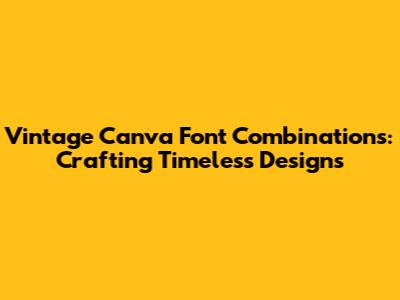
Hey guys! Are you looking to give your designs that awesome, classic feel? You know, that vintage vibe that just screams cool? Well, you're in the right place! Let's dive into the world of vintage Canva font combinations. I'm going to show you how to mix and match fonts to create designs that look like they're straight out of a time capsule. Trust me, it's easier than you think, and the results can be stunning. Whether you're working on a logo, a poster, or social media graphics, the right font combo can make all the difference. So, grab your creative hat, and let's get started!
Understanding the Essence of Vintage Fonts
Before we jump into specific font pairings, it's crucial to understand what makes a font feel vintage. Vintage fonts often evoke a sense of nostalgia, history, and craftsmanship. They tend to have distinct characteristics that set them apart from modern, minimalist typefaces. Think about the fonts you've seen in old movie posters, retro advertisements, and antique books. What do they have in common? Typically, vintage fonts include serifs (those little feet or strokes at the end of letters), decorative elements, and a certain level of ornamentation. They might also have a slightly distressed or imperfect appearance, adding to their aged charm.
When selecting vintage fonts for your Canva designs, consider the specific era or style you want to emulate. Are you going for a 1920s Art Deco look? Or perhaps a mid-century modern feel? Each era has its own unique typographic trends. For example, Art Deco fonts often feature geometric shapes and bold lines, while mid-century fonts might have a more playful and whimsical quality. Understanding these nuances will help you choose fonts that accurately reflect the vintage aesthetic you're aiming for. Also, pay attention to the overall mood and message you want to convey. A delicate, script font might be perfect for a romantic wedding invitation, while a bold, sans-serif font could be more suitable for a retro-inspired promotional poster. By carefully considering these factors, you can select vintage fonts that not only look beautiful but also effectively communicate your intended message.
Top Vintage Font Pairings in Canva
Alright, let's get to the fun part: pairing fonts! Here are some of my favorite vintage font combinations that you can easily recreate in Canva. I'll break down why these pairings work so well together and give you some ideas for how to use them in your projects.
1. Playfair Display & Montserrat
Playfair Display is a classic serif font with elegant, high-contrast letterforms. It exudes sophistication and refinement, making it perfect for headlines and titles. When paired with Montserrat, a clean and modern sans-serif font, you create a beautiful balance between old and new. Montserrat provides a sense of readability and simplicity that complements the ornate details of Playfair Display. This combination works well for magazine layouts, website headers, and branding materials.
Imagine using Playfair Display for the title of a vintage-inspired fashion magazine, with Montserrat for the body text and captions. The contrast between the two fonts would immediately catch the reader's eye while maintaining a sense of clarity and professionalism. Or, consider using this pairing for a website header, with Playfair Display for the company name and Montserrat for the navigation menu. The elegant title font would convey a sense of history and heritage, while the clean sans-serif font would ensure that the website is easy to navigate. This combination is also a great choice for branding materials, such as business cards and letterheads. Playfair Display can be used for the company logo, while Montserrat can be used for contact information and other details.
2. Bebas Neue & Roboto
For a bolder, more industrial vintage feel, try pairing Bebas Neue with Roboto. Bebas Neue is a tall, condensed sans-serif font that's perfect for making a statement. It has a strong, masculine quality that's reminiscent of vintage signage and posters. Roboto, on the other hand, is a versatile and modern sans-serif font that provides excellent readability. When used together, these fonts create a dynamic contrast that's both eye-catching and functional. This combination is ideal for posters, flyers, and social media graphics.
Think about using Bebas Neue for the headline of a retro-inspired concert poster, with Roboto for the details about the event. The bold title font would immediately grab attention, while the clean sans-serif font would ensure that the information is easy to read. Or, consider using this pairing for a social media graphic promoting a sale or special offer. Bebas Neue can be used to highlight the discount or promotion, while Roboto can be used to provide additional details. This combination is also a great choice for website banners and advertisements. Bebas Neue can be used to create a sense of urgency and excitement, while Roboto can be used to provide clear and concise information. The key to making this pairing work is to use Bebas Neue sparingly and to ensure that Roboto is used for the majority of the text. This will prevent the design from feeling too overwhelming or cluttered.
3. Cinzel & Lato
If you're aiming for a more refined and classical vintage aesthetic, consider pairing Cinzel with Lato. Cinzel is a serif font inspired by classical Roman inscriptions. It has a timeless and elegant quality that's perfect for projects that require a touch of sophistication. Lato, a sleek sans-serif, offers a more modern contrast. The combination is fantastic for wedding invitations, book covers, and high-end branding.
Imagine using Cinzel for the names of the bride and groom on a wedding invitation, with Lato for the details about the ceremony and reception. The elegant serif font would convey a sense of romance and tradition, while the clean sans-serif font would ensure that the invitation is easy to read. Or, consider using this pairing for the cover of a historical fiction novel, with Cinzel for the title and Lato for the author's name and other details. The classical serif font would evoke a sense of history and authenticity, while the modern sans-serif font would prevent the cover from feeling too dated. This combination is also a great choice for branding materials for luxury brands. Cinzel can be used for the company logo, while Lato can be used for taglines and other marketing materials. The key to making this pairing work is to use Cinzel strategically and to ensure that Lato is used for the majority of the text. This will create a sense of balance and harmony between the two fonts.
Tips for Using Vintage Font Combinations Effectively
Okay, now that we've covered some specific font pairings, let's talk about some general tips for using vintage font combinations effectively. Here are a few things to keep in mind as you're working on your designs: